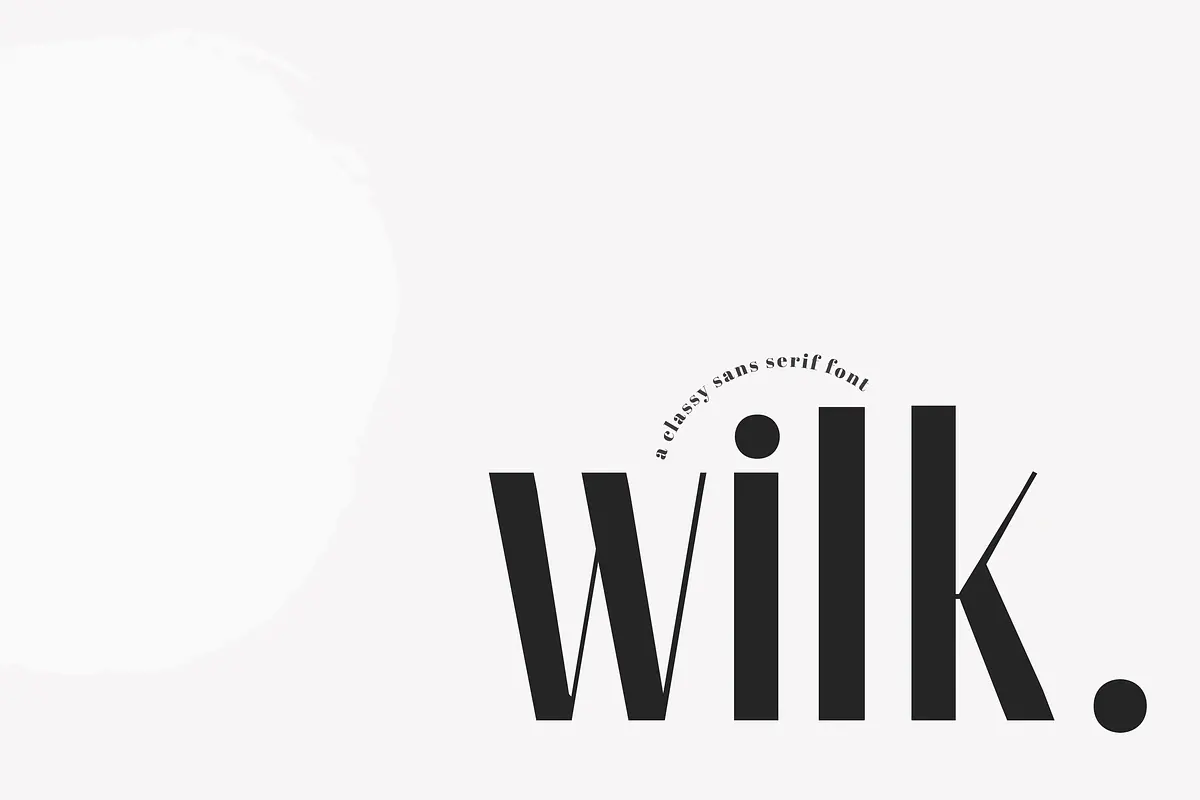
Wilk Font Free Download is a sleek and classy sans serif typeface that embodies modern minimalism with a refined edge. Featuring clean lines, balanced proportions, and a smooth geometric flow, Wilk is perfect for high-end branding, editorial design, fashion lookbooks, packaging, and professional presentations.
Crafted for elegance and clarity, Wilk Font Free Download offers excellent legibility while maintaining a sophisticated presence. It performs beautifully in both large headlines and smaller text, making it a versatile choice for digital and print use alike.
Wilk is ideal for designers seeking a minimalist, luxury-inspired font that doesn’t sacrifice character. Whether you’re building a modern logo, designing a clean website interface, or crafting stylish marketing materials, Wilk brings a polished and timeless feel to every project.